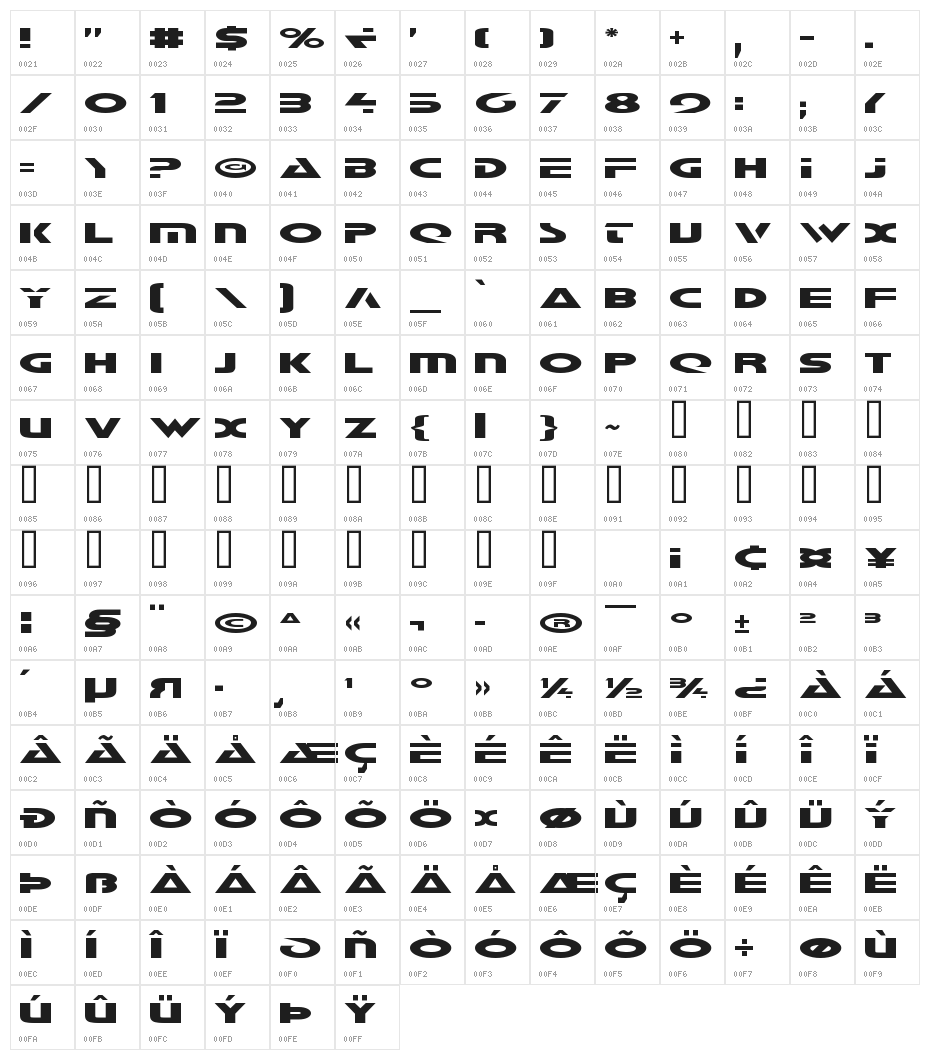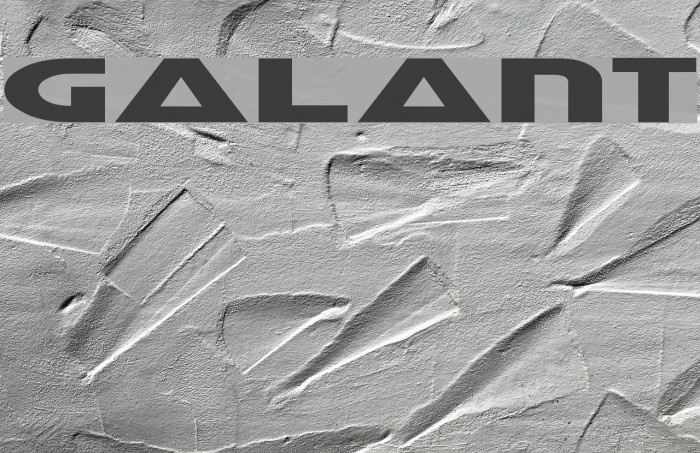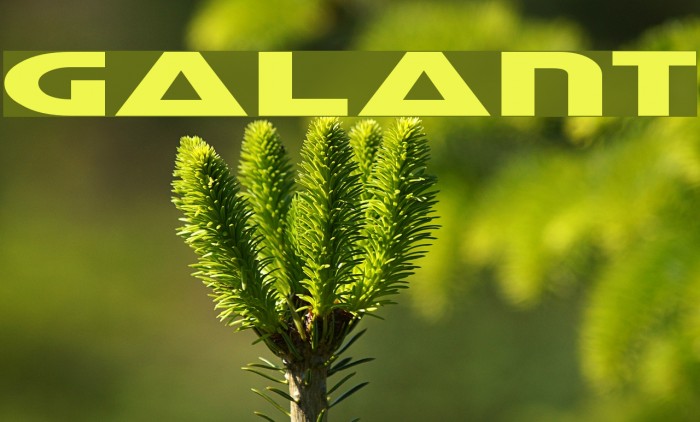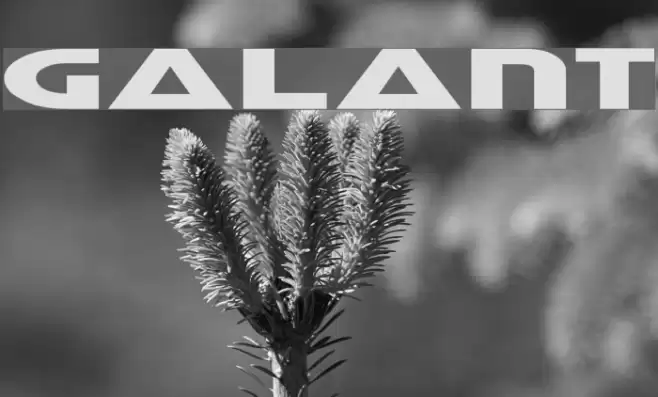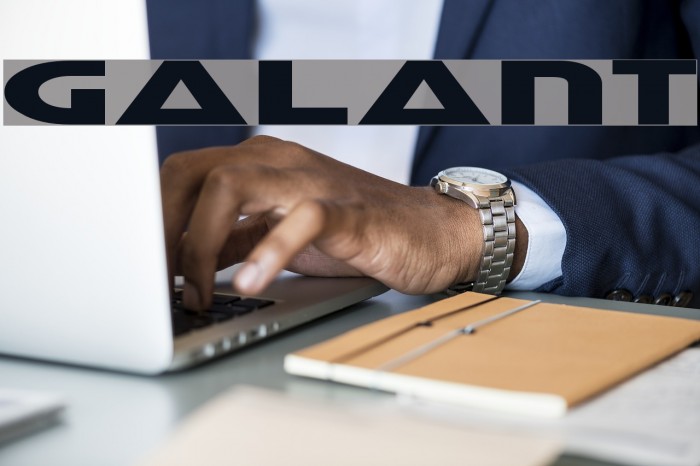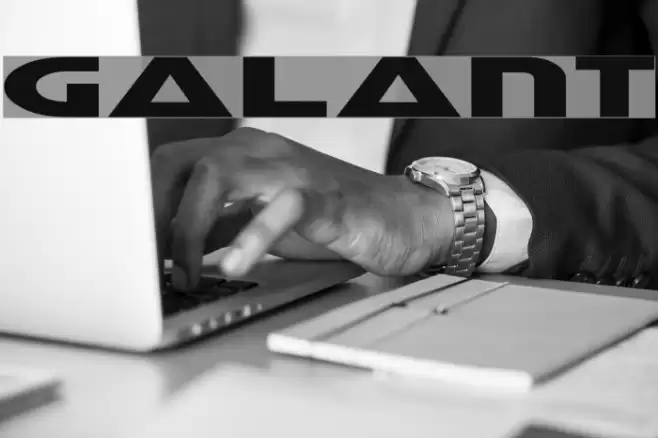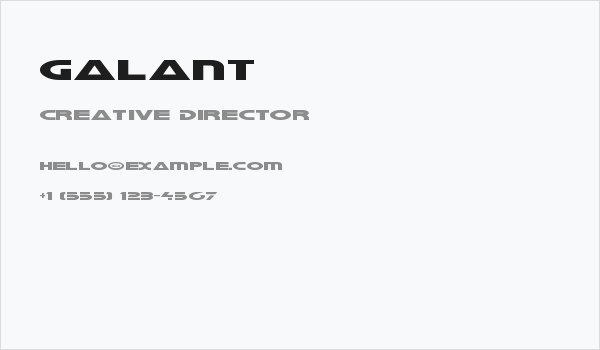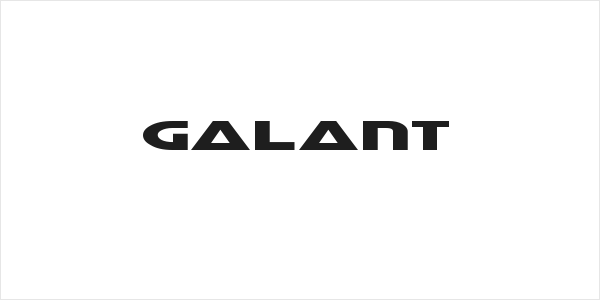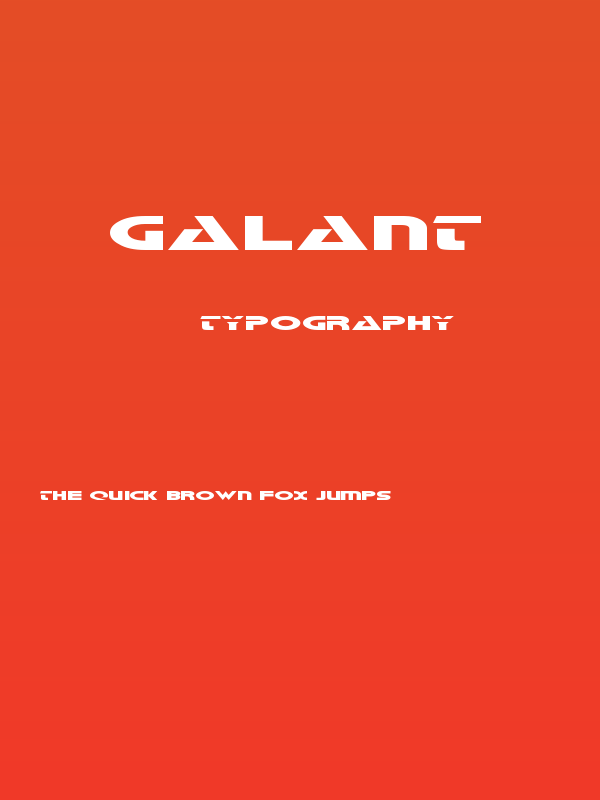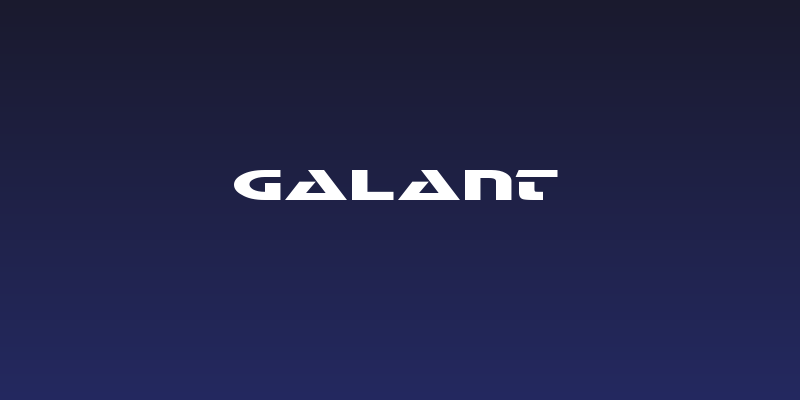
Galant Font
Galant Description
This font features a bold and futuristic design with geometric elements. The characters are constructed with sharp angles and clean lines, giving it a modern and dynamic appearance. The uppercase letters are particularly striking, with unique shapes that create a sense of movement and energy. The numbers and special characters maintain this bold style, ensuring consistency throughout the typeface. Its distinctive look makes it ideal for projects that require a strong visual impact.
| Proposed Projects | Ideal for branding, posters, video game graphics, and sci-fi themed projects. |